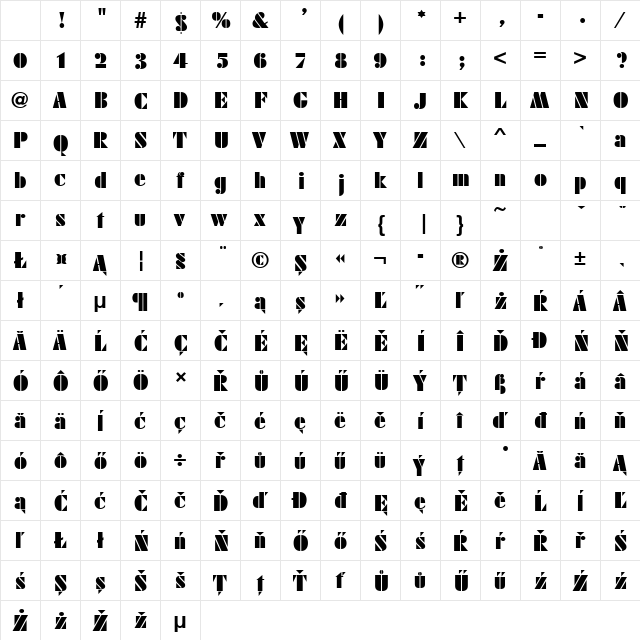
Complete Fujiyama Black Hu Normal glyph index. Displaying only characters natively supported by Fujiyama Black Hu Normal font.
Fujiyama Black Hu is a composed and adaptable typeface that performs quietly and consistently across a wide range of design contexts.